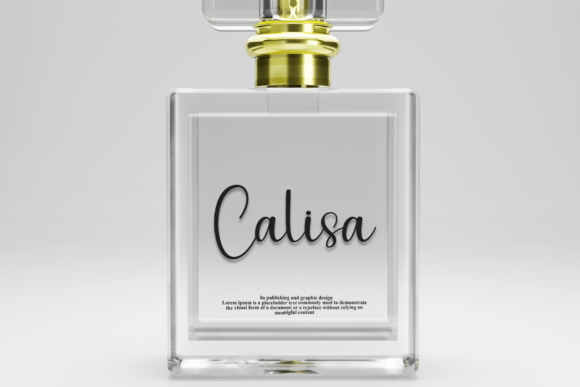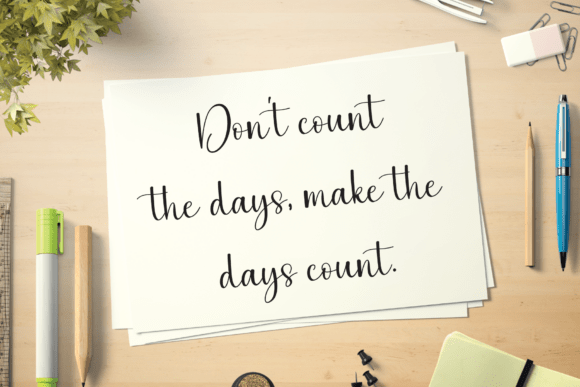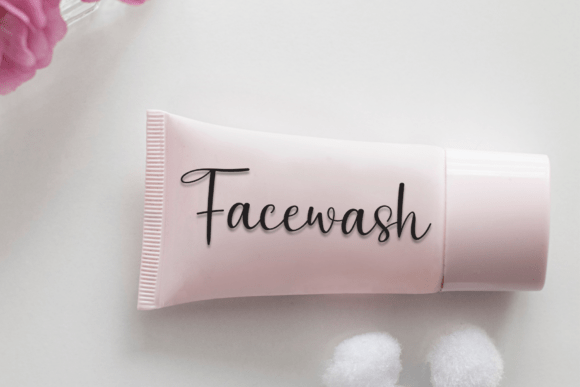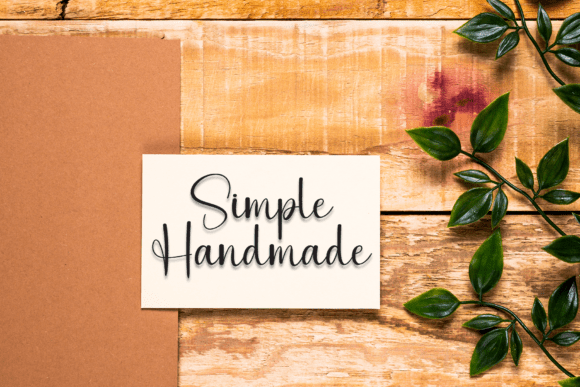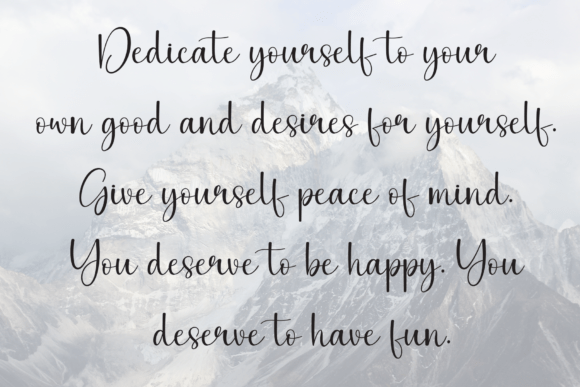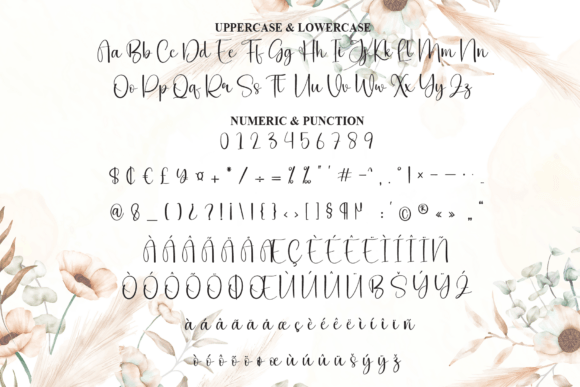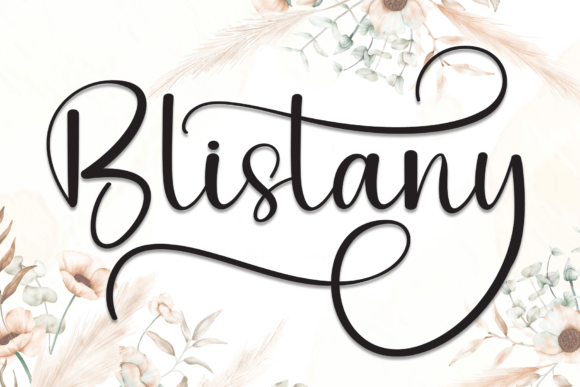
Blistany Font: Elevate Your Designs with Elegance and Playfulness
In the world of typography, fonts play a crucial role in conveying the tone and personality of a design. For designers and crafters looking to add a touch of sophistication and whimsy to their projects, the Blistany Font is an excellent choice. This stylish handwritten script font seamlessly blends modern elegance with a playful touch, making it perfect for a wide range of applications.
The Characteristics of Blistany Font
Blistany Font is characterized by its fluid strokes and charming curves, which bring a personal feel to any design. Its unique blend of modernity and playfulness makes it an ideal choice for designers looking to create something truly special. The font’s elegant and refined appearance is balanced by a touch of whimsy, making it perfect for projects that require a bit of personality.
What Makes Blistany Font Stand Out?
So, what sets Blistany Font apart from other fonts? Here are a few key features that make it a standout choice:
- Fluid Strokes: Blistany Font features fluid strokes that give it a natural, handwritten feel. This makes it perfect for creating designs that require a personal touch.
- Charming Curves: The font’s charming curves add a touch of elegance and sophistication to any design.
- Modern Elegance: Blistany Font blends modern elegance with a playful touch, making it perfect for designers looking to create something truly unique.
- Playful Touch: The font’s playful touch adds a bit of whimsy to any design, making it perfect for projects that require a bit of personality.
Blistany Font is incredibly versatile and can be used for a wide range of projects, including:
- Logos: The font’s elegant and refined appearance makes it perfect for creating logos that require a touch of sophistication.
- Packaging: Blistany Font is ideal for packaging designs that require a bit of personality and whimsy.
- Invitations: The font’s charming curves and fluid strokes make it perfect for creating invitations that are both elegant and playful.
Adding Warmth, Sophistication, and Creativity to Your Designs
Blistany Font is designed to add warmth, sophistication, and creativity to every project. Its unique blend of modern elegance and playfulness makes it perfect for designers looking to create something truly special. Whether you’re working on a logo, packaging design, or invitation, Blistany Font is sure to elevate your design to the next level.
Why Designers and Crafters Love Blistany Font
Designers and crafters love Blistany Font for a variety of reasons, including:
- Ease of Use: The font is incredibly easy to use and can be easily integrated into a variety of design projects.
- Versatility: Blistany Font is incredibly versatile and can be used for a wide range of projects.
- Unique Appearance: The font’s unique blend of modern elegance and playfulness makes it perfect for designers looking to create something truly special.
In conclusion, Blistany Font is a stylish handwritten script font that is perfect for designers and crafters looking to add a touch of elegance and whimsy to their projects. Its fluid strokes and charming curves bring a personal feel to any design, making it perfect for logos, packaging, and invitations. With its unique blend of modern elegance and playfulness, Blistany Font is sure to elevate your design to the next level.